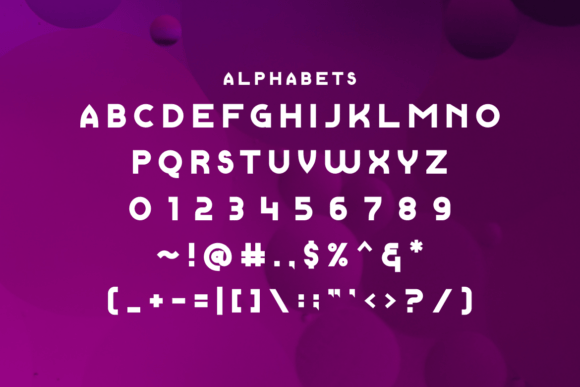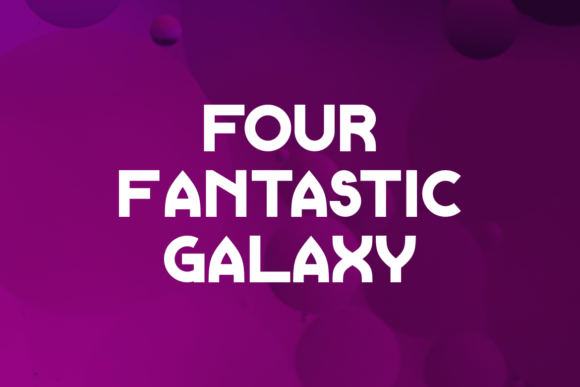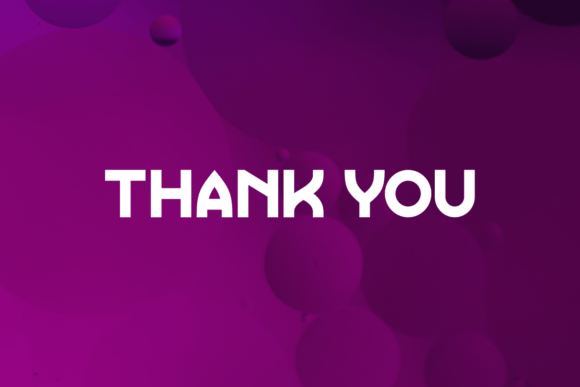
Introduction to Davine Rexxen Font
Davine Rexxen is a bold and futuristic display font that exudes trendiness and technological vibes.
With its sharp edges and geometric forms, this font captures attention and makes a statement Ideal for modern and cutting-edge designs, Davine Rexxen adds a touch of innovation and energy to any project.
Key Features of Davine Rexxen Font
Why Choose Davine Rexxen Font?